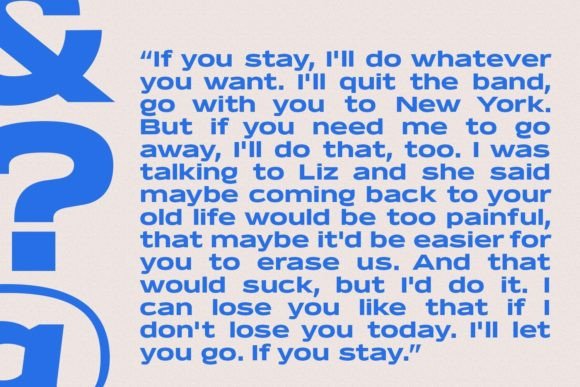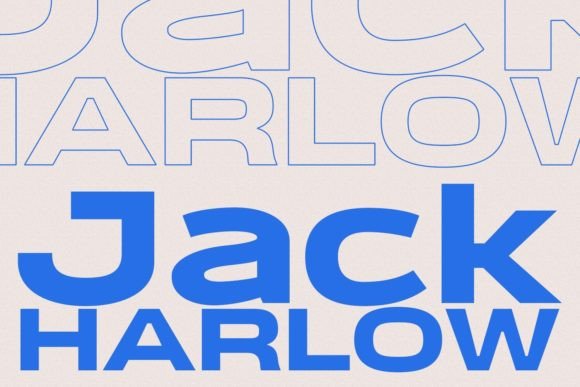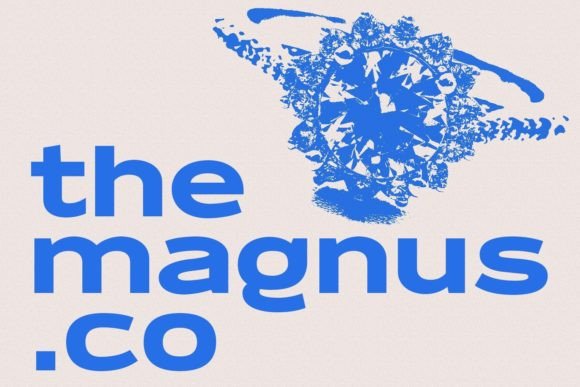
The Power of Belgro Font: Unlocking Strong and Dynamic Designs
I’ll never forget the time I was working on a branding project for a new fitness studio. My client wanted a bold and energetic feel, but I was struggling to find the right font to convey that message. That’s when I stumbled upon the Belgro font. With its modern and assertive sans serif design, it instantly added a strong and confident vibe to my designs. In this article, I’ll share my experience with Belgro, its features, and how to make the most of it in your designs.
An Honest Review of Belgro Font
What I Love About Belgro ✨
- ✅ Strong and confident: Belgro exudes a sense of power and dynamism, making it perfect for bold designs.
- ✅ Modern and fresh: Its sleek lines and curves give it a contemporary feel that’s hard to ignore.
- ✅ Versatile: Belgro works well in various design contexts, from headings to body text.
- ⚠️ Not suitable for body text: While Belgro is amazing for headings, it might not be the best choice for long-form text due to its bold nature.
- Experiment with OpenType features, such as Stylistic Alternates, to add more character to your text.
- Access OpenType features, such as Glyphs and Stylistic Sets, to customize your text.
The Backstory of Belgro Font
Belgro was designed with the goal of creating a strong and dynamic sans serif font that could add character to various designs. Its creators aimed to craft a font that would be both modern and assertive, making it perfect for bold and confident designs.
| What makes Belgro font unique? | Belgro’s unique combination of modern and assertive design elements sets it apart from other sans serif fonts. |
| Is Belgro suitable for body text? | While Belgro is amazing for headings, it might not be the best choice for long-form text due to its bold nature. |